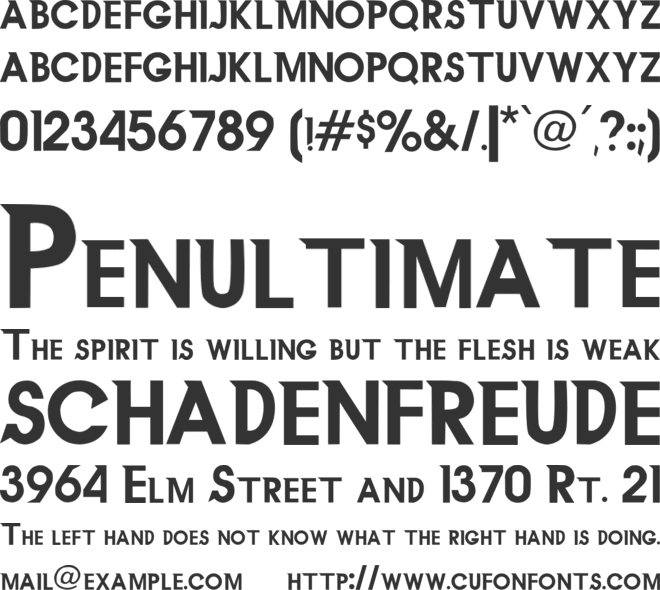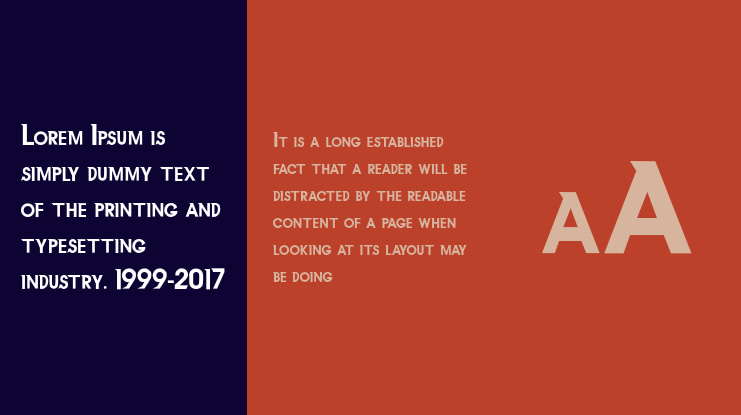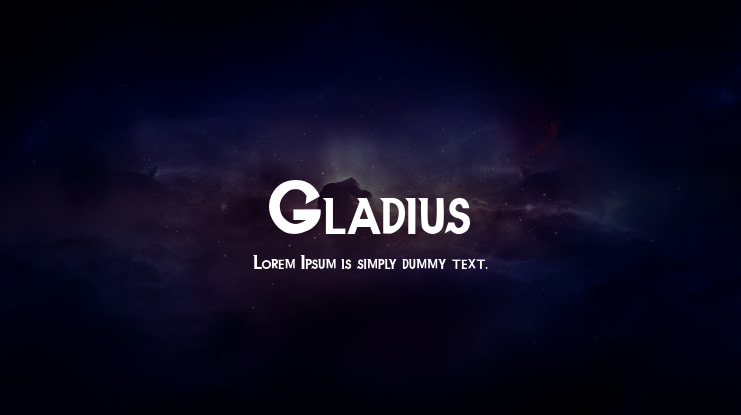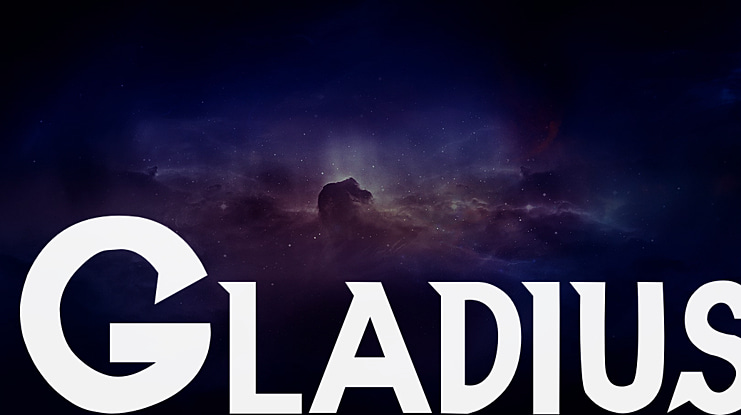
Gladius Font
Introducing our new release, Gladius Retro Vintage Typeface. This typeset is perfect for brand logo, invitations, greeting card, or even any kind of project. With multilingual feature and style variations, this typeface would further enhance the aestethical aspect of your work.Visit our website :https://displaytypefont.com/product/gladius-100free/